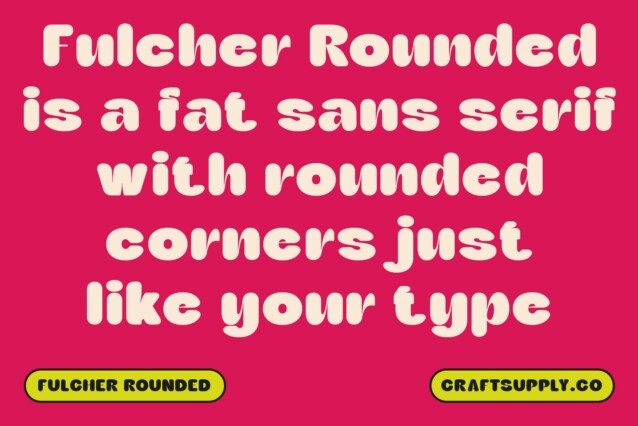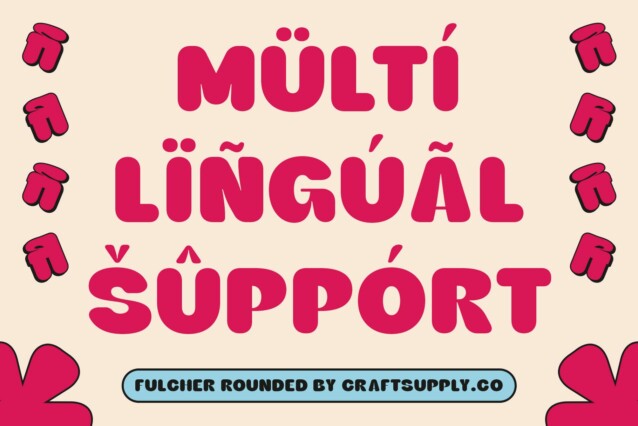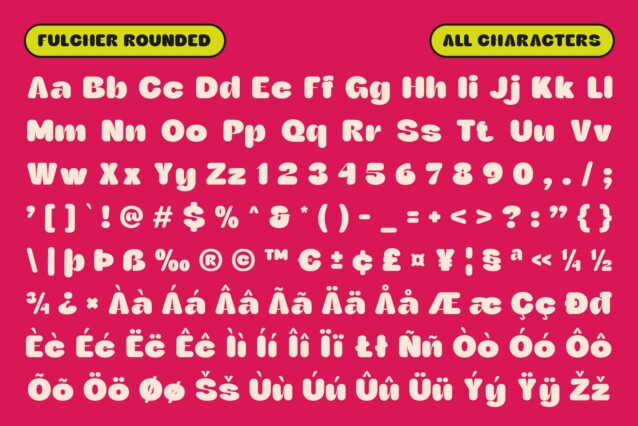
Fulcher Rounded Font
Fulcher Rounded Font is a bold, modern sans serif font that masterfully combines strong, thick strokes with soft, curved edges. Its bold weight ensures a powerful presence, making it perfect for headlines, branding, and other designs where impact and emphasis are key. The font’s rounded shapes provide a friendly, approachable feel, striking a balance between strength and warmth. This contrast creates a design that’s both eye-catching and inviting, ideal for contemporary projects that want to make a statement without being overly harsh.